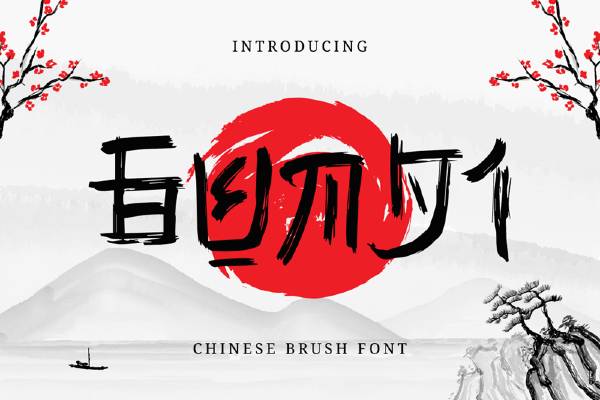
Design and create your own unique Asian-themed images with our free online Asian font generator tool. This won't come as a surprise but Asian font styles originated in Asia! Official Asian tyepfaces can be traced back to the 1800s when the Cleveland Type Foundry obtained a patent for an Asian calligraphy style typeface. This style soon became synonymous with all things Asian. Whether it be Japan, China, Indonesia, or perhaps even Thailand - these free fonts are a great choice for those looking to add a splash of oriental wonder to their projects. And thanks to our Asian logo and lettering generator, adding an Asian touch to your work couldn't be easier.